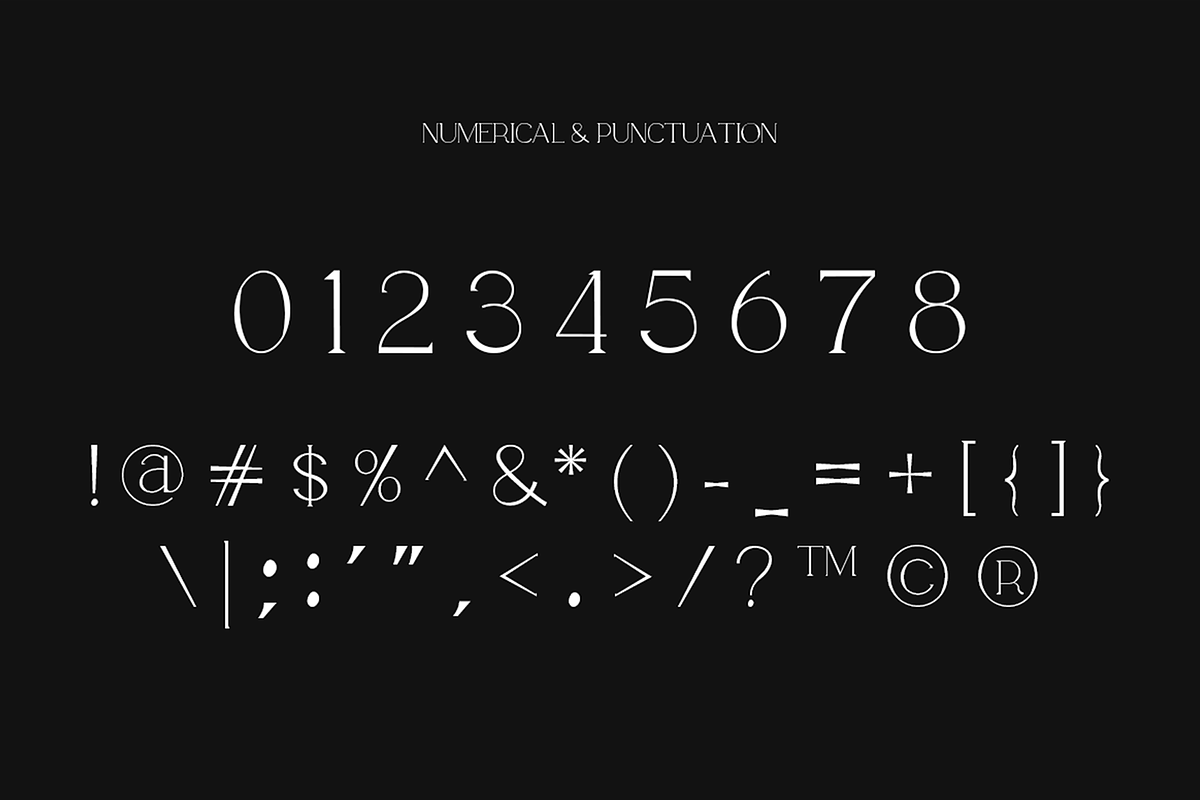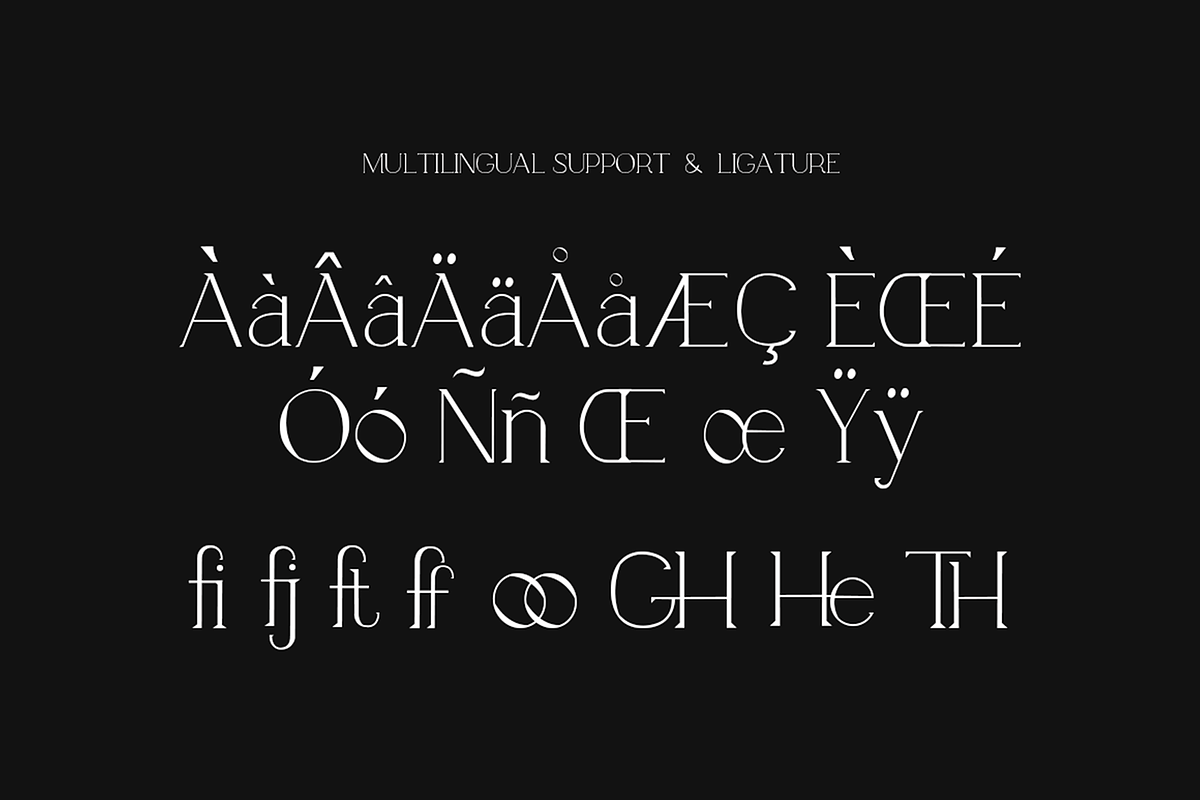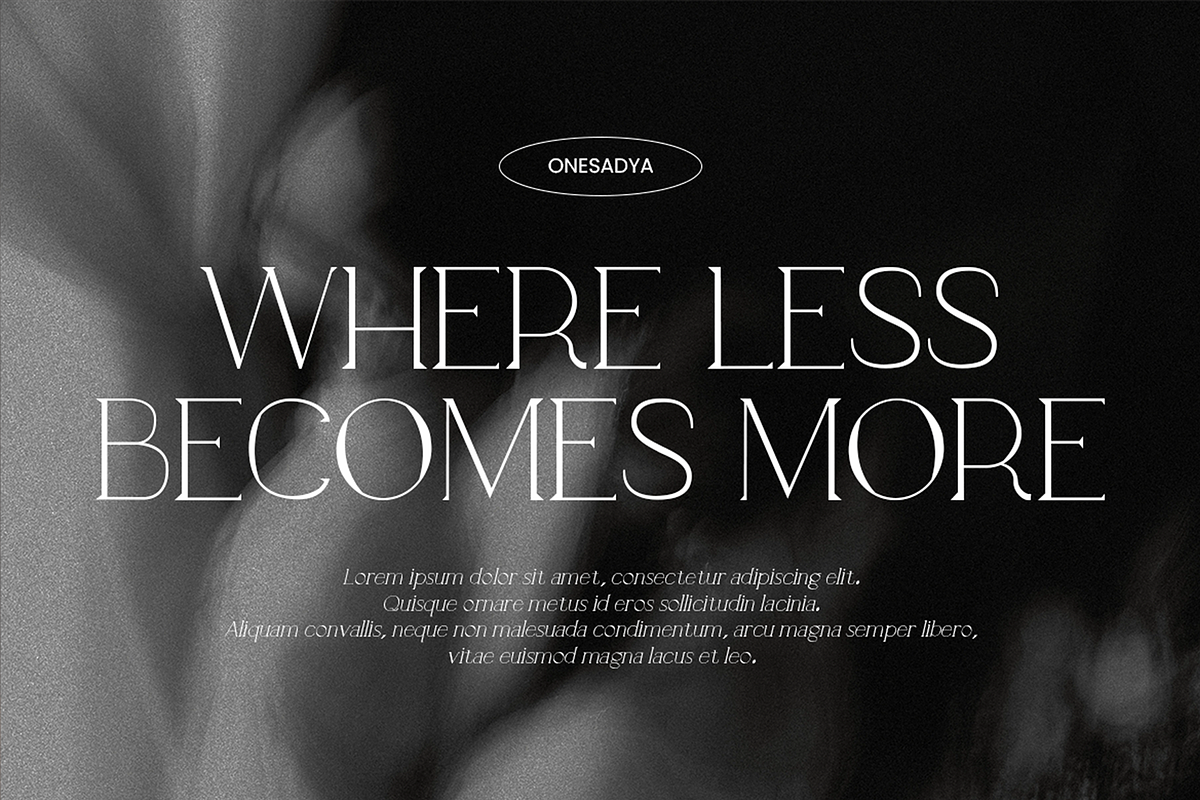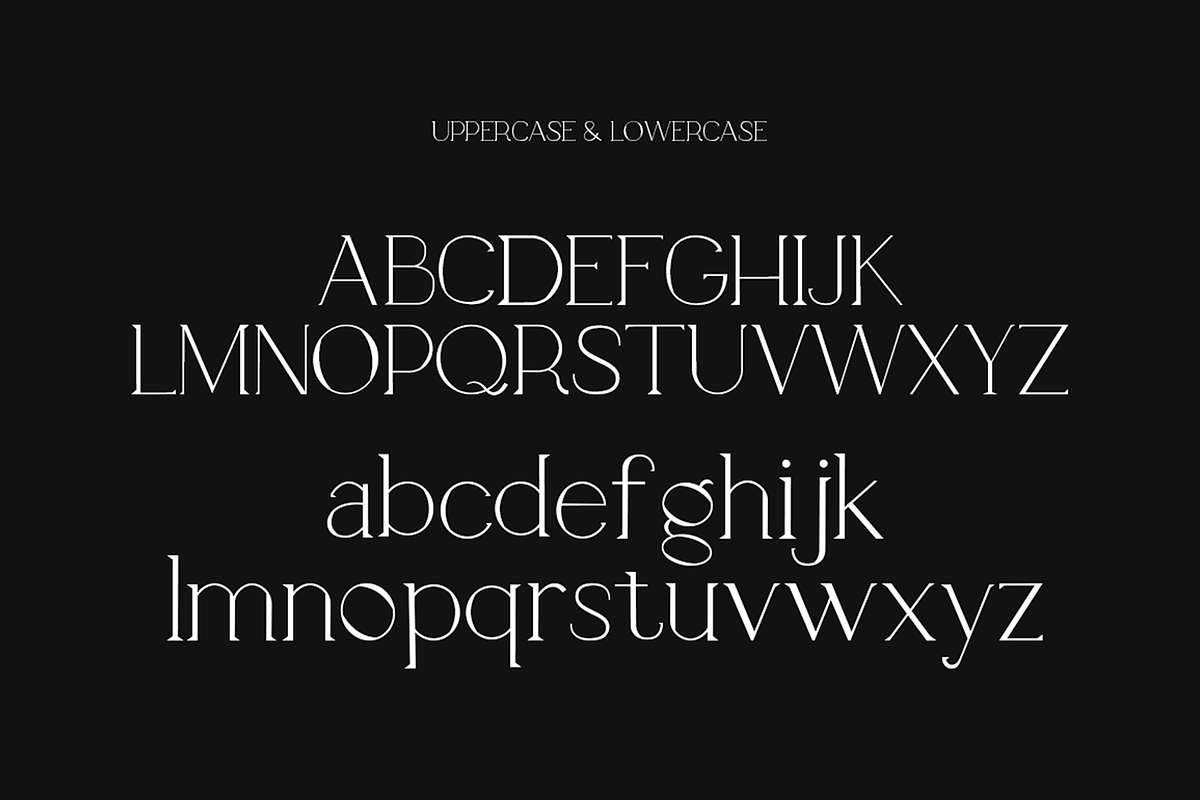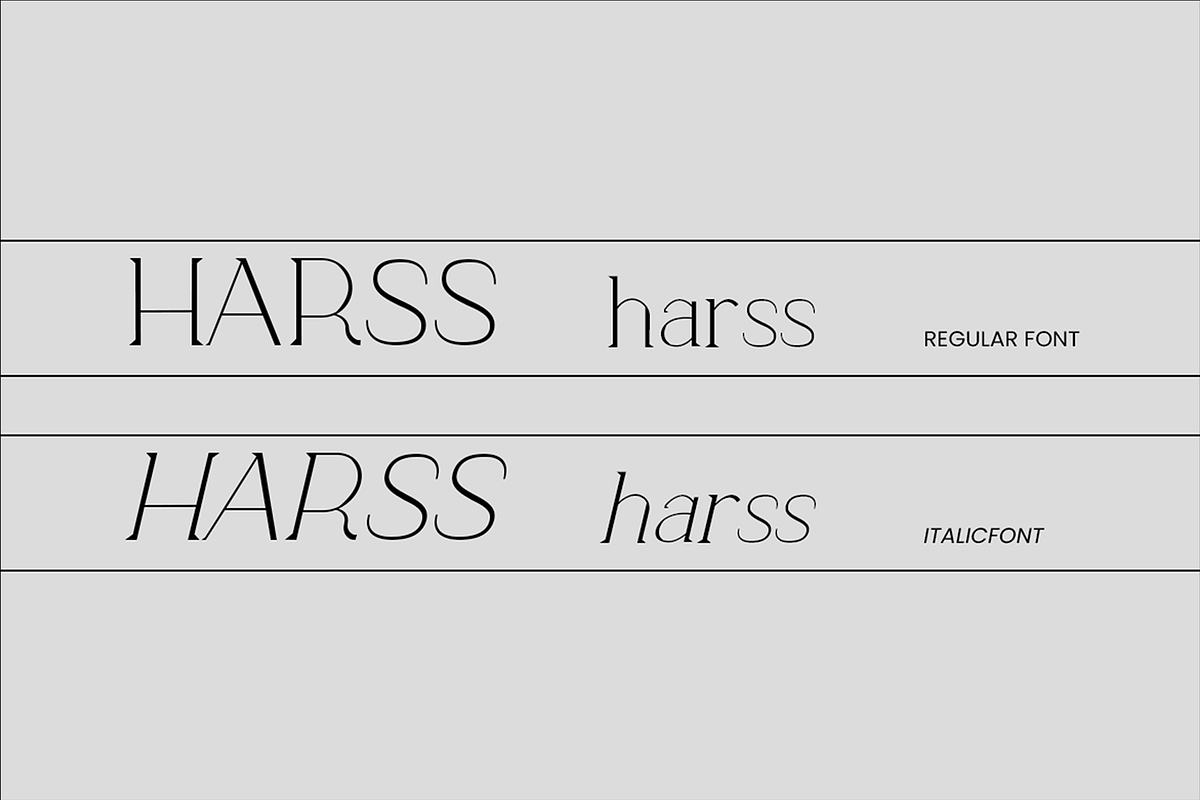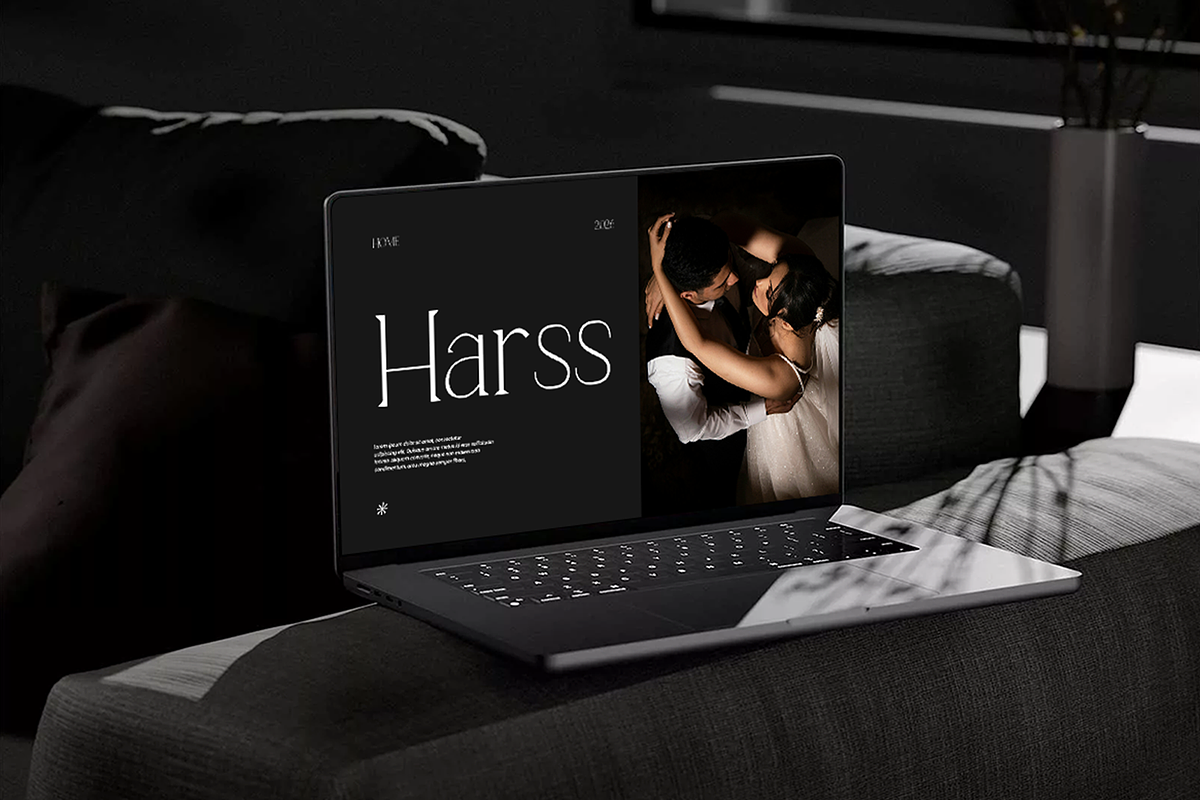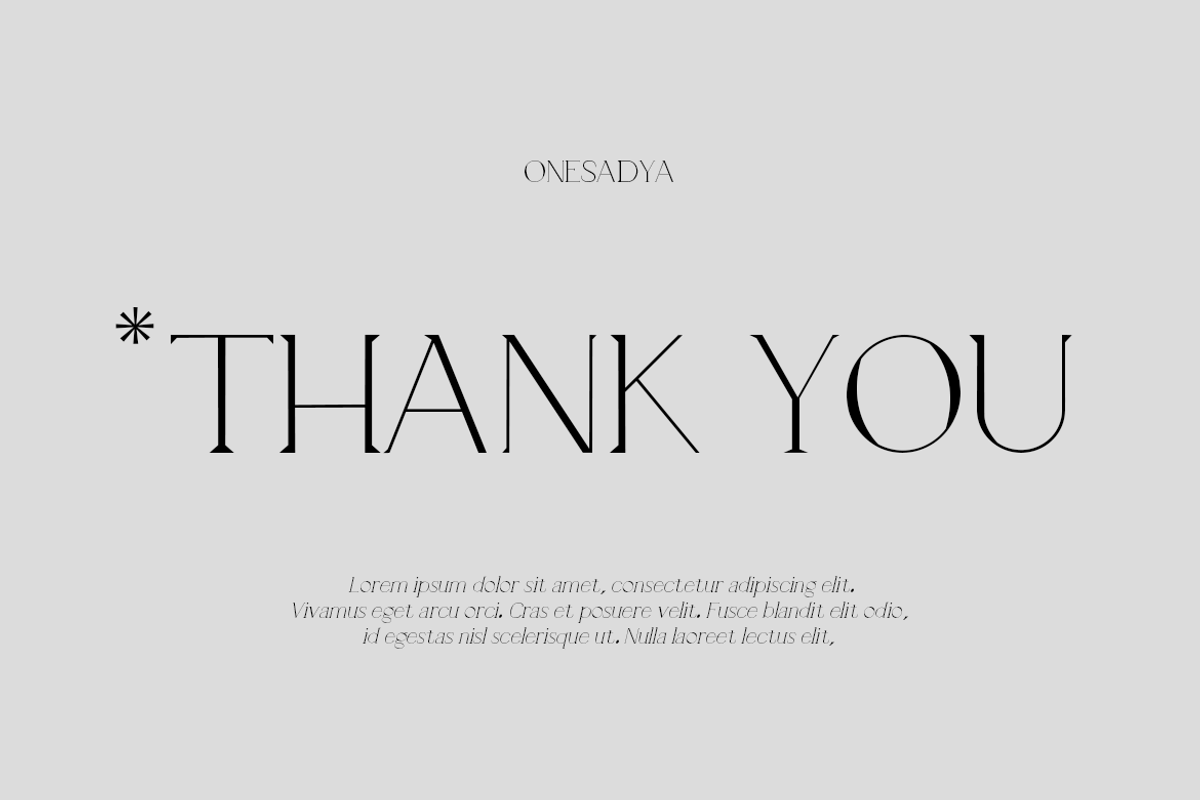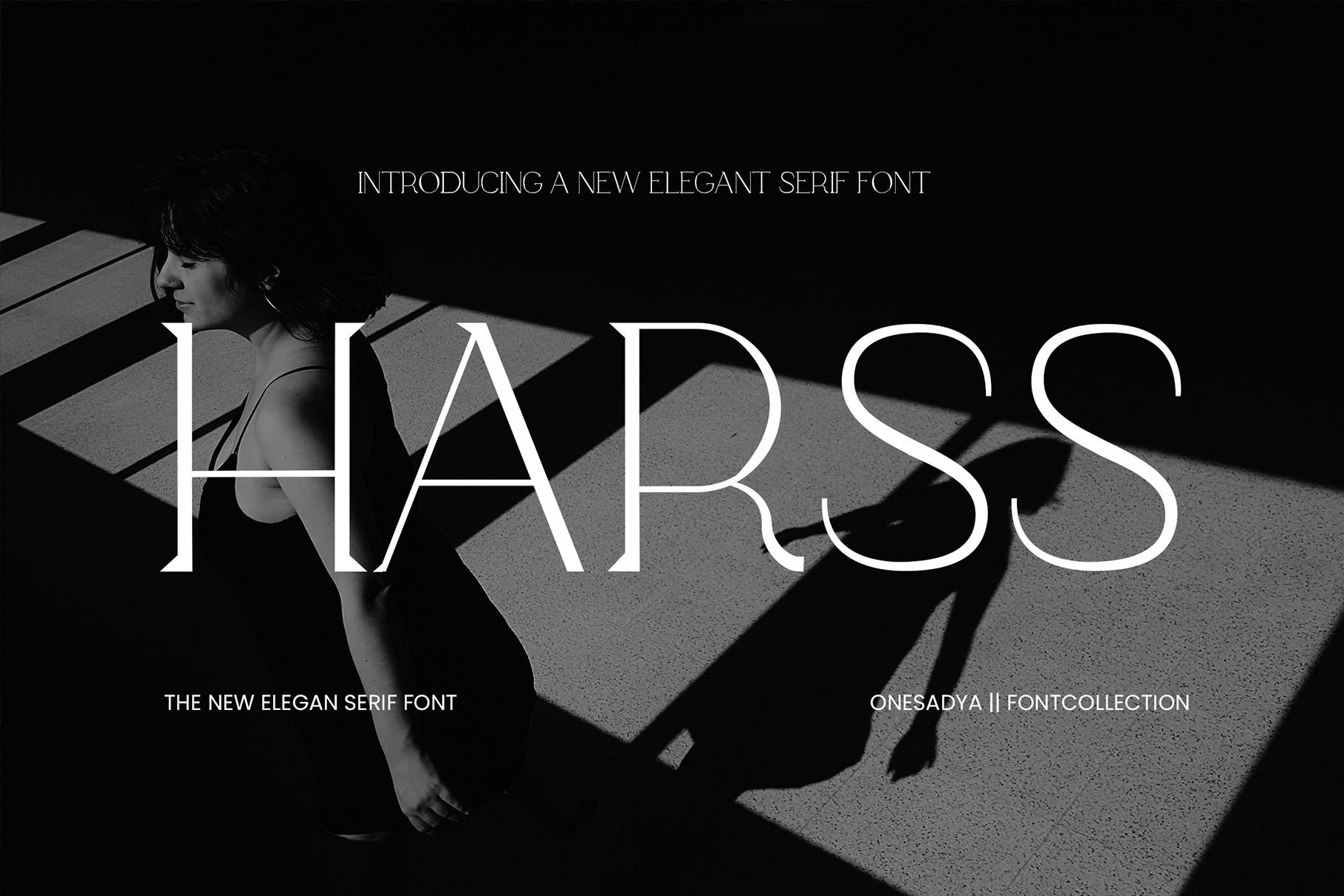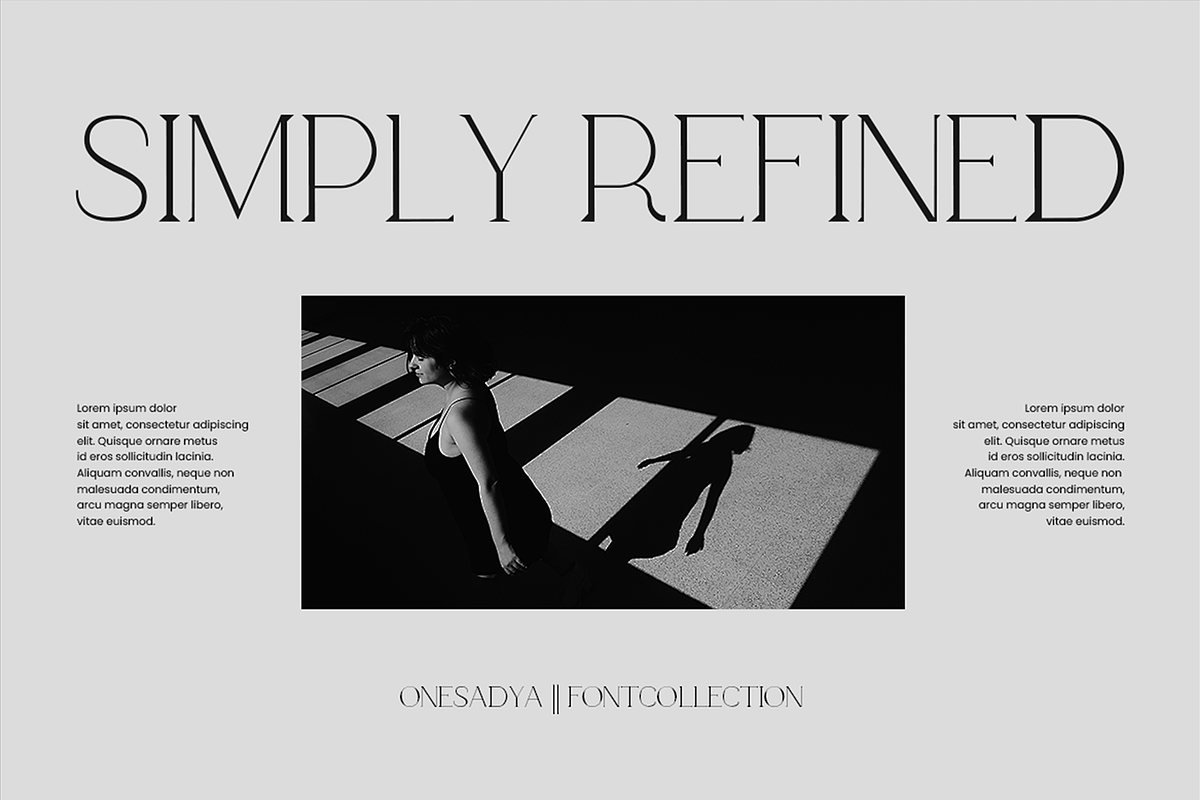
Harss - Minimalist Serif Font
Harss – Minimalist Serif Font Typeface
Harss is a sophisticated Minimalist Serif Font Typeface designed with a clean, refined, and timeless aesthetic. Its elegant serif details and balanced proportions create a distinctive look that feels modern while maintaining a classic character.
Perfect for branding, logos, editorial design, fashion projects, magazines, packaging, invitations, posters, social media graphics, and luxury branding. Harss works beautifully for both elegant headlines and stylish display compositions.
With its versatile and polished appearance, Harss is an excellent choice for designers looking to add a touch of minimalism, sophistication, and contemporary elegance to their creative projects.
Minimalist and elegant serif style
Modern yet timeless appearance
Perfect for display and branding purposes
Suitable for logos and visual identities
Great for editorial and fashion designs
Ideal for packaging, posters, invitations, and social media
Clean and sophisticated letterforms
Harss is made for designers who appreciate understated elegance, clean typography, and a premium visual aesthetic.